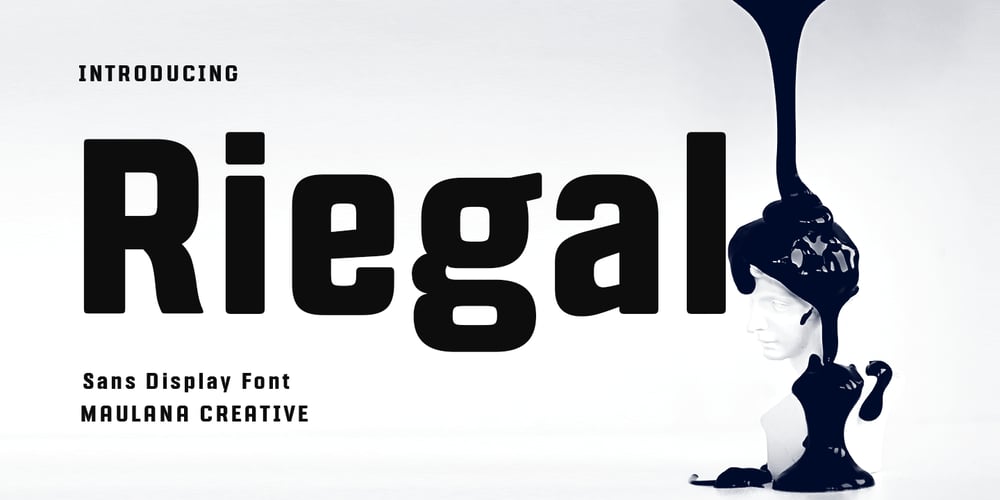
MC Riegal Font Family was designed by Gilang Maulana and published by Maulana Creative. MC Riegal contains 1 styles and family package options. Riegal is a Square-is sans Display Tech font. Bold stroke, fun character with a bit of ligatures and alternates. To give you an extra creative work. Riegal font support multilingual more than 100+ language. This font is good for logo design, Social media, Movie Titles, Books Titles, a short text even a long text letter and good for your secondary text font with script or serif. Make a stunning work with Riegal font. Cheers, Maulana Creative